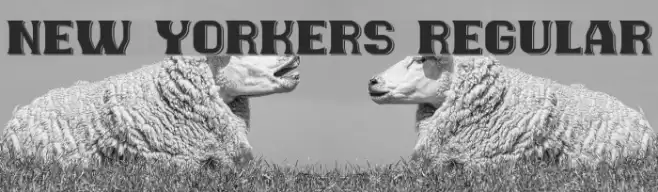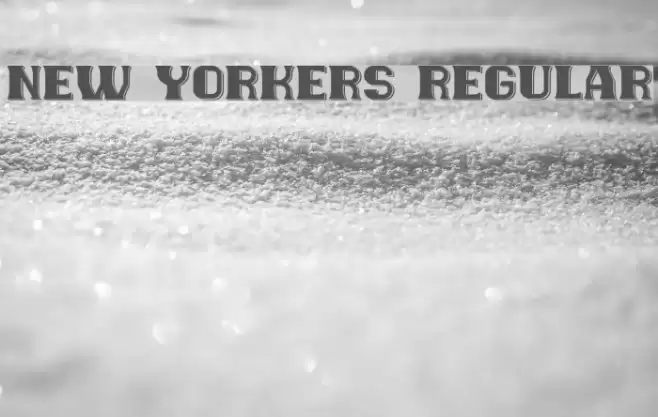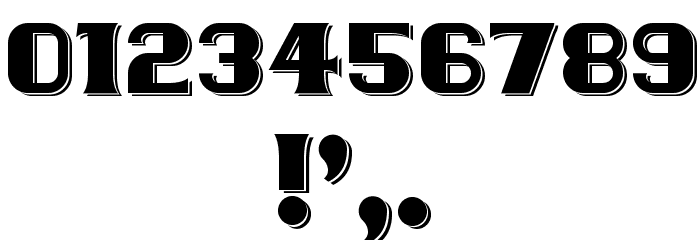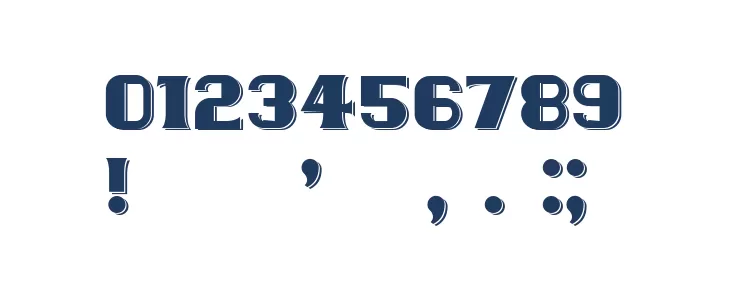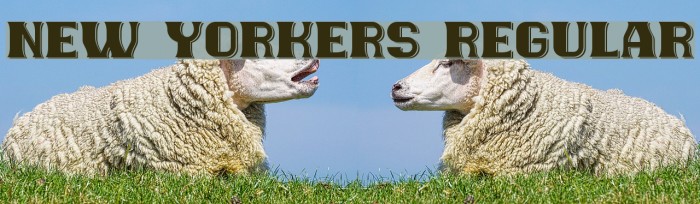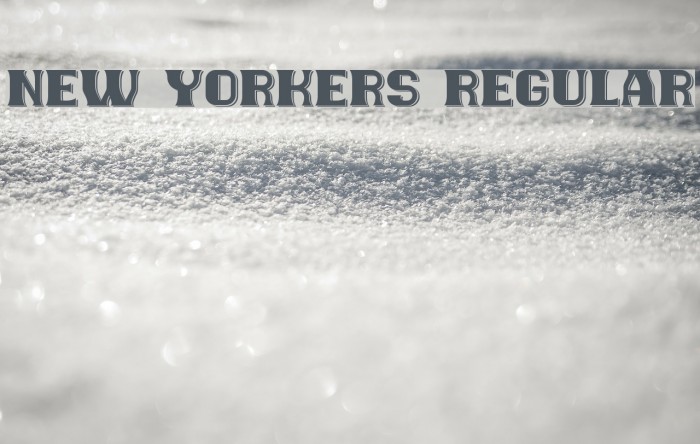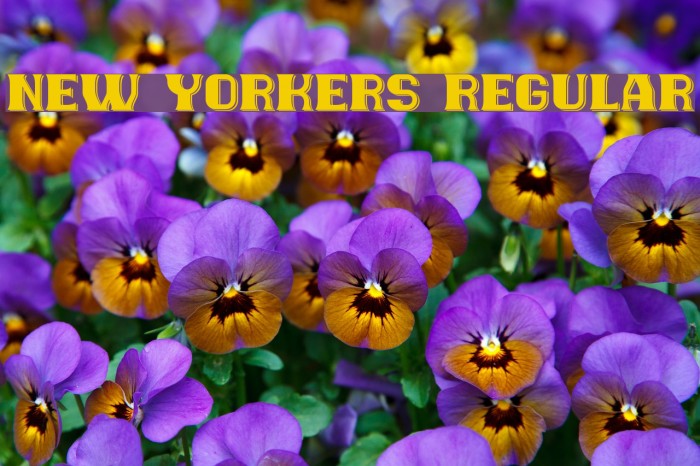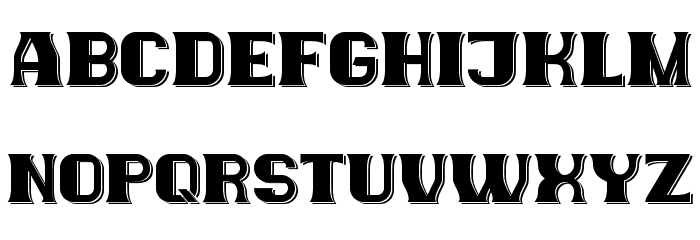
New Yorkers Regular Font
New Yorkers Regular Description
This font features a bold and striking design with a strong presence. The characters are crafted with a distinct shadow effect, giving them a three-dimensional appearance. The uppercase letters are particularly prominent, with sharp serifs and a robust structure. The numbers and special characters maintain the same bold style, ensuring consistency across all elements. This font's unique style makes it ideal for attention-grabbing headlines and titles.
A bold, shadowed font with sharp serifs and a three-dimensional effect from Uncategorized fonts.
- Proposed Projects: Ideal for posters, headlines, branding, and any design requiring a bold statement.